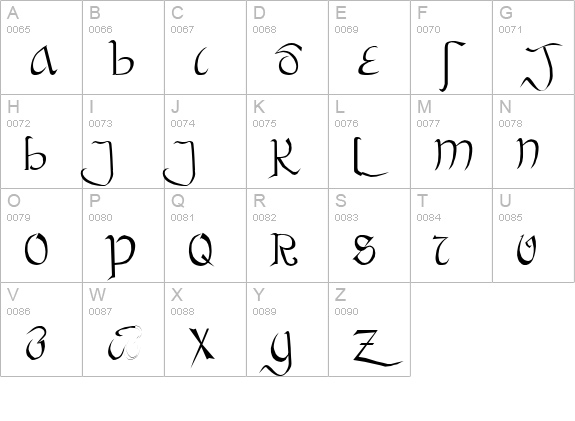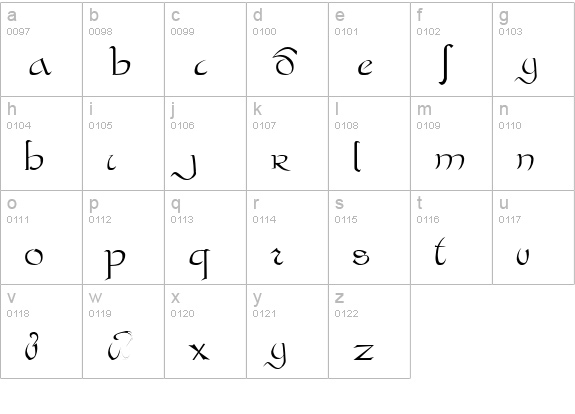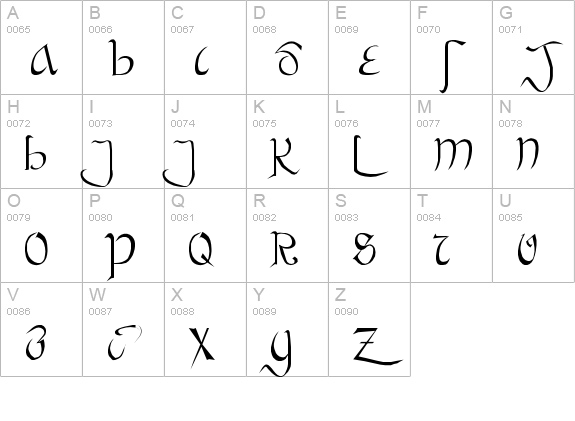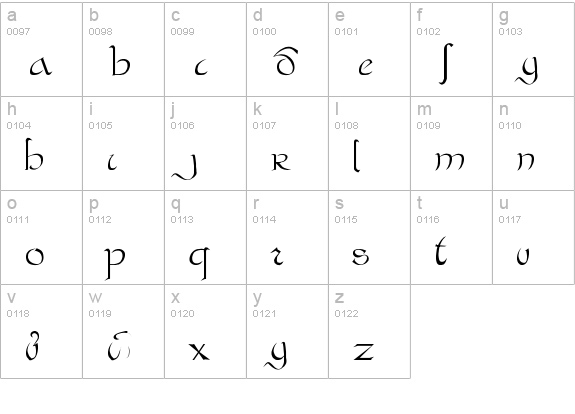
Bastarda Regular Font Details
Bastarda Regular is the standard, neutral variant in the Bastarda typeface family \xE2\x80\x94 well suited to general body text, paragraphs, and standard typographic work.
Bastarda Regular font is a versatile and elegant typeface that exudes a classic yet modern aesthetic. With its unique combination of sharp edges and flowing curves, this font is perfect for a wide range of design projects, from branding to editorial design. What sets Bastarda Regular font apart is its distinct personality and legibility, making it a standout choice for both headlines and body text. Its clean lines and balanced proportions ensure readability in both print and digital formats, enhancing the overall visual impact of your designs. Best of all, Bastarda Regular font is available for free download at FontsMarket.com, allowing you to elevate your projects without breaking the bank. Whether you're a seasoned designer or just starting out, this font is a valuable addition to your toolkit. Download Bastarda Regular font today and unleash your creativity with this stunning typeface.